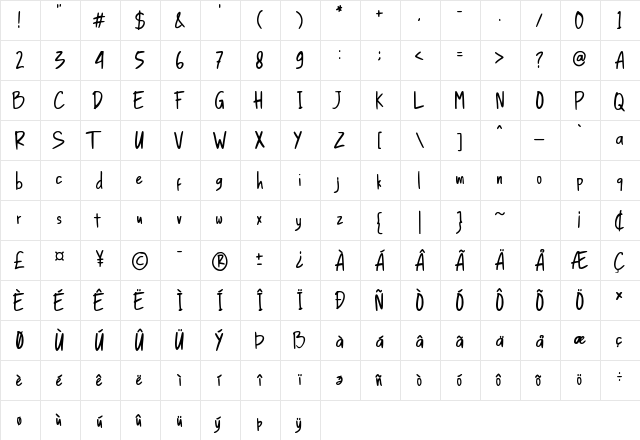
the Comic Struves Regular
| Designer | Stringlabs. 2020 |
Design Context for the Comic Struves Typeface
the Comic Struves trades formality for fun, with bouncy, characterful letterforms that bring warmth and energy to any project.
Well-suited to food and beverage brands with personality, educational materials, and fun-forward identities.
Font Pairing: Pairs well with a rounded or humanist sans for body copy, maintaining the friendly tone without relying on the Comic Struves to carry extended reading.
Pro Tip: Use the Comic Struves at larger display sizes where its expressive character can land. Pair with a clean, simple sans for body copy to maintain readability.